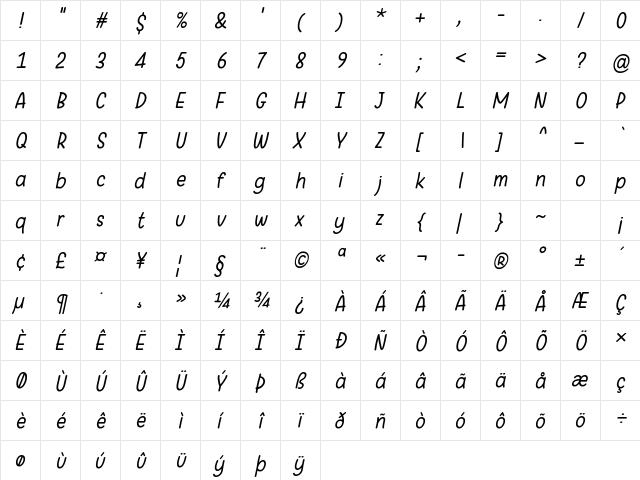
Warung Kopi Light Italic Font Preview
| Foundry | 7NTypes |
| Designer | Situjuh Nazara |
Design Context for Warung Kopi Light Typeface
Warung Kopi Light offers clean, dependable letterforms without strong stylistic allegiance, making it a practical choice for designers who need flexibility. The dynamic lean of this cut emphasises speed and emphasis in any layout. Its slender proportions lend an understated elegance to any composition.
Pro Tip: Try Warung Kopi Light for annotation and caption copy alongside an upright companion — the contrast in angle creates a dynamic but ordered typographic system.